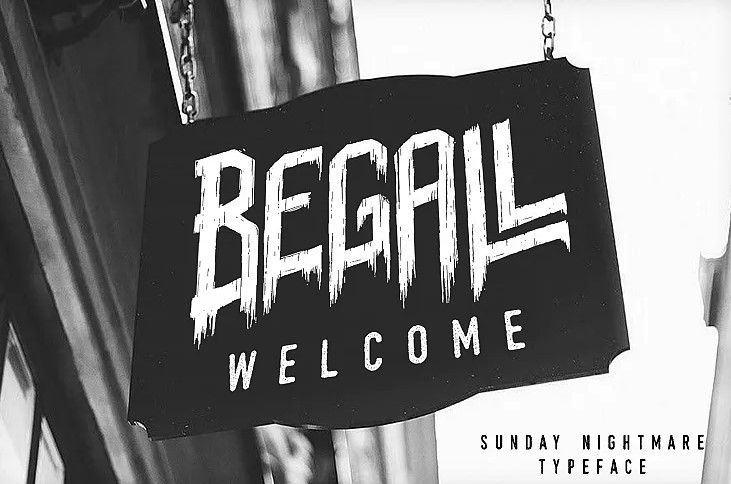
Sunday Nightmare Typeface Font
Sunday Nightmare Typeface Font is known for its pairing function and also highly utilized in horror movies. Due to its particular content material, it won numerous awards like Annie awards, genesis award, and Peabody award.
That has created through distress font and launched by means of linotype font foundry when you consider that 1990.